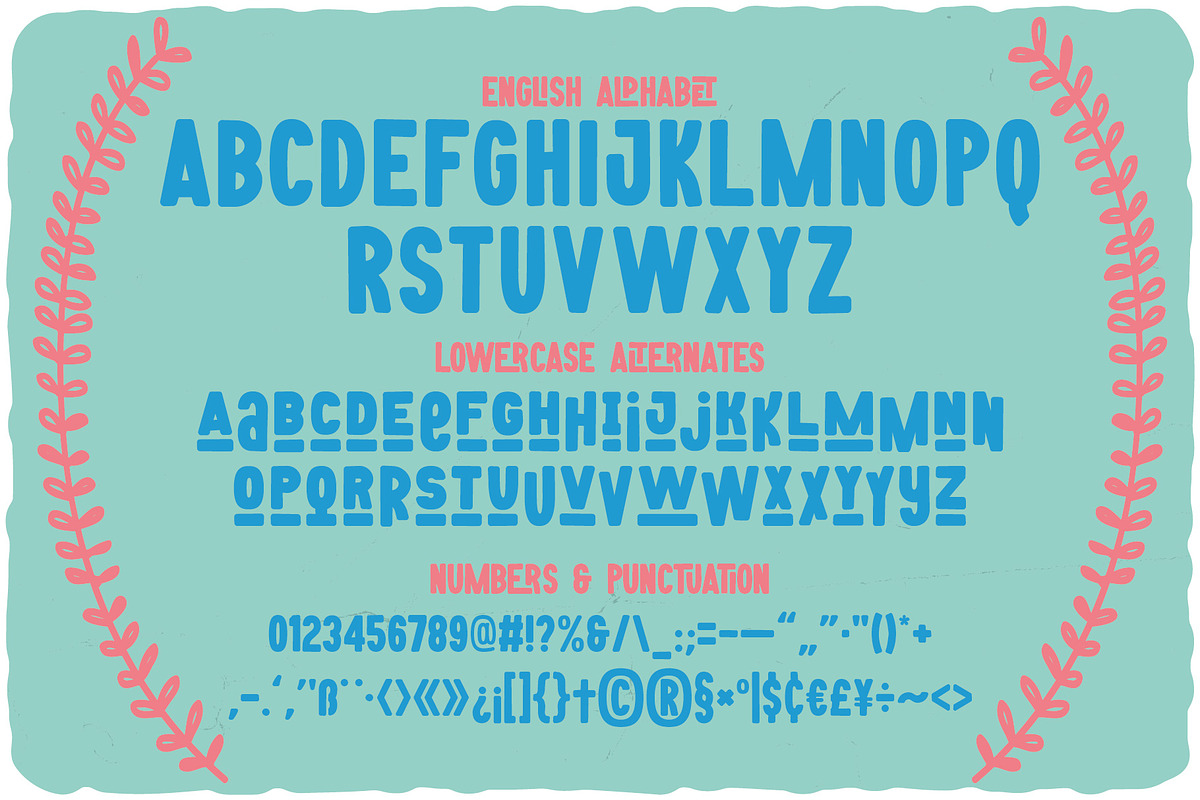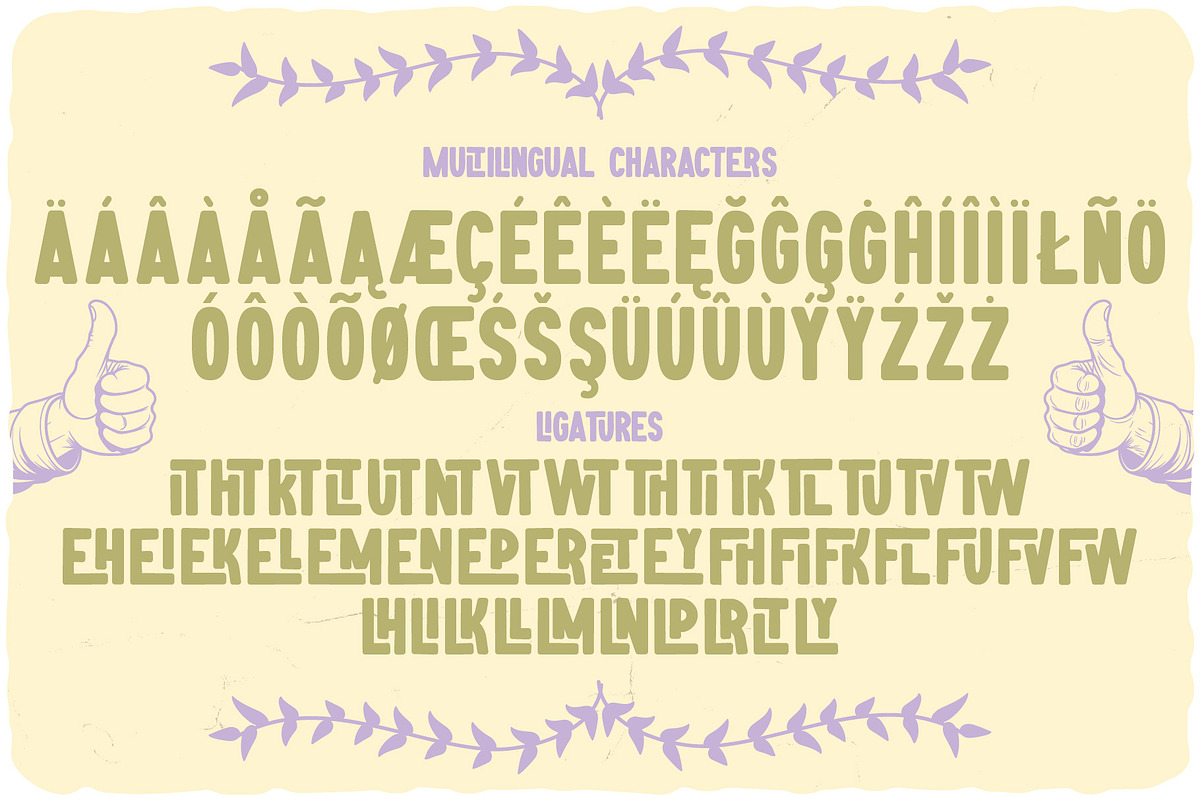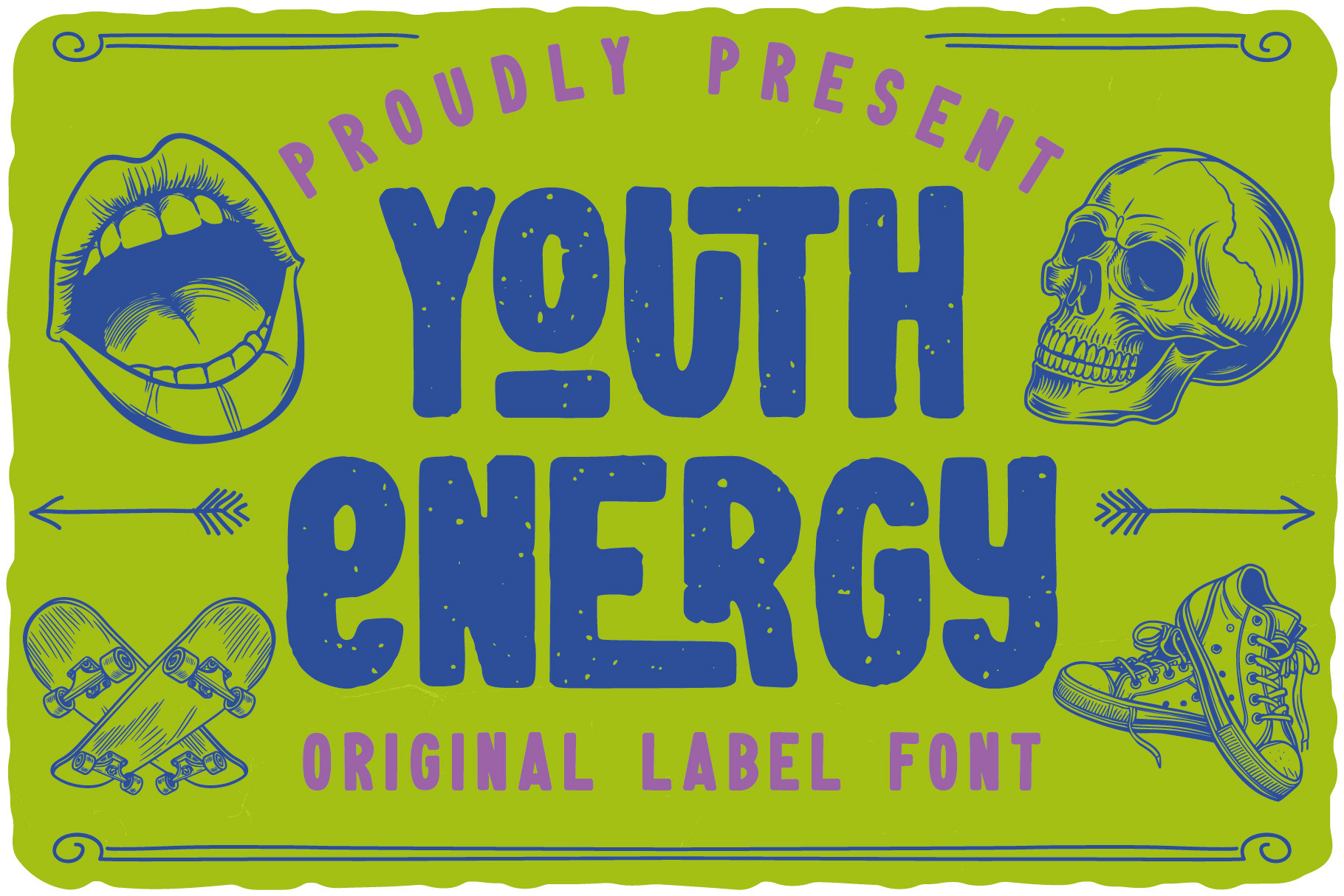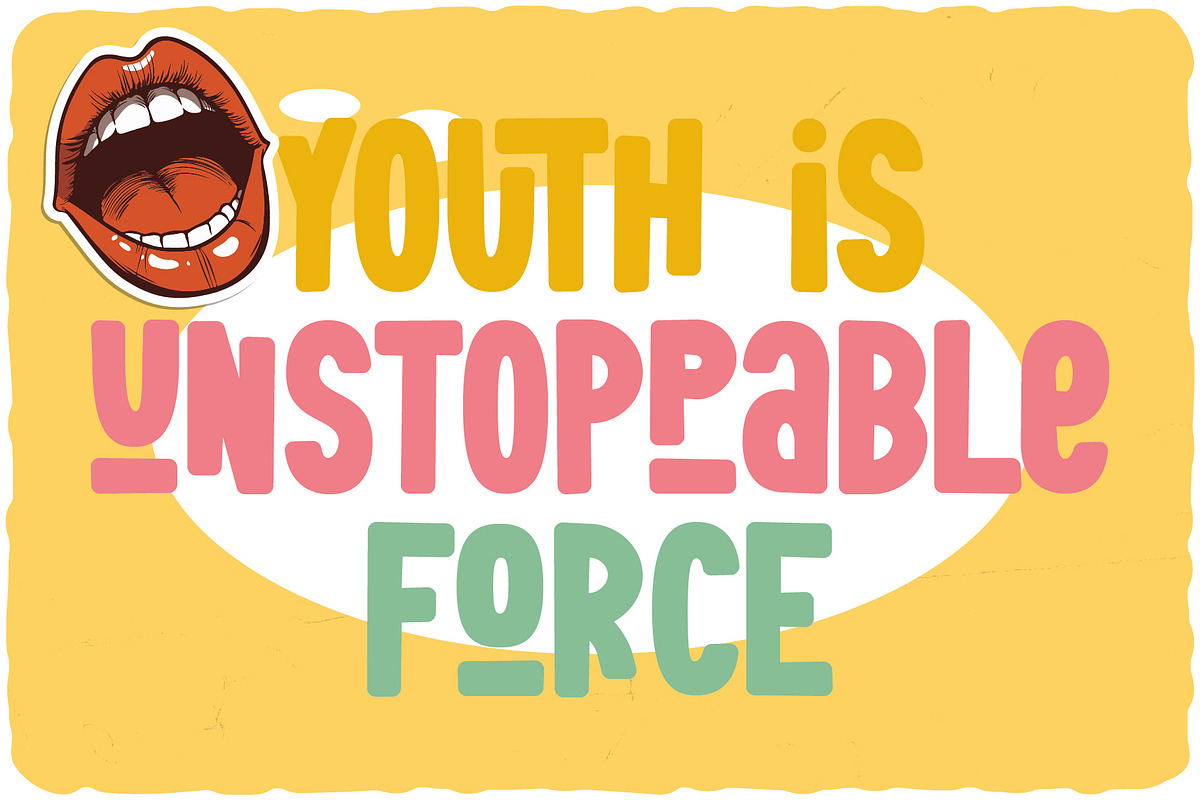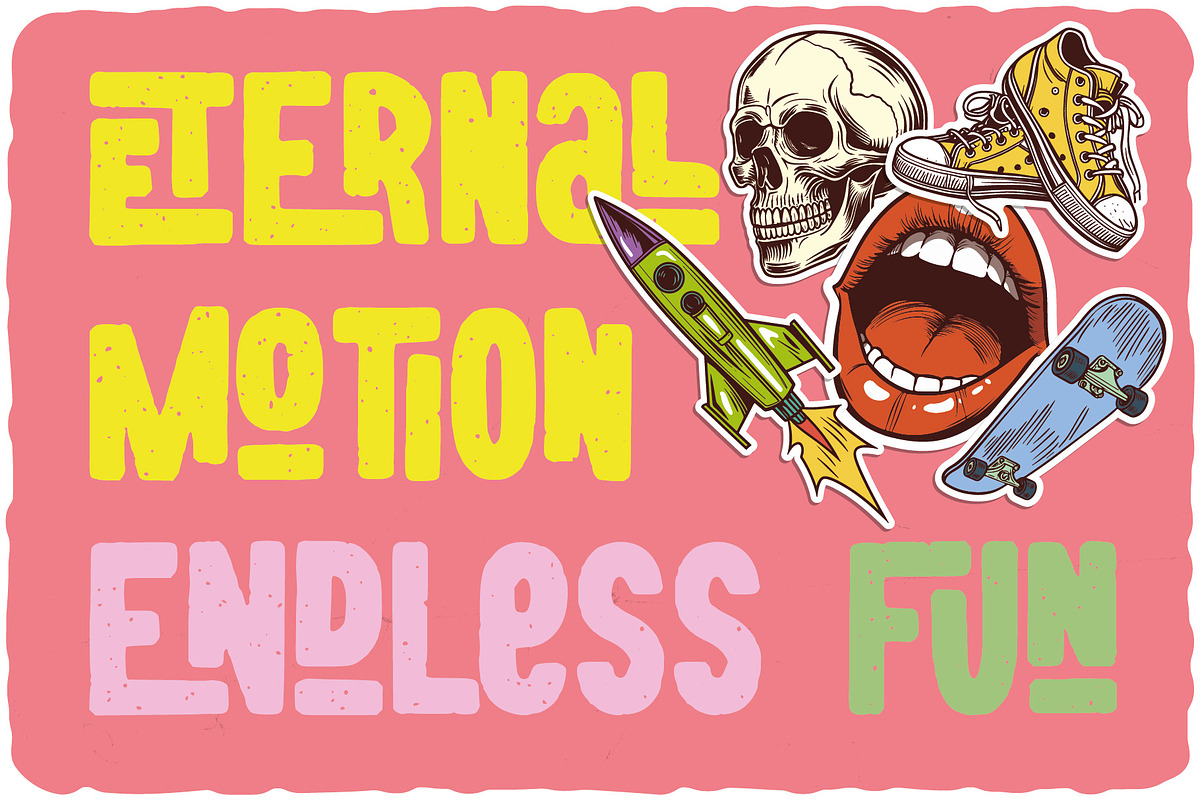
Youth Energy Label Font
Unique, crazy, condensed, urban, ligature, street style & label sans serif font. Comes with multilingual support & ligatures + rough font version - great for your new logo, monogram or branding project.
- 2 font versions - regular & rough
- Multilingual support & ligatures
- Great for your new logo, monogram or branding project